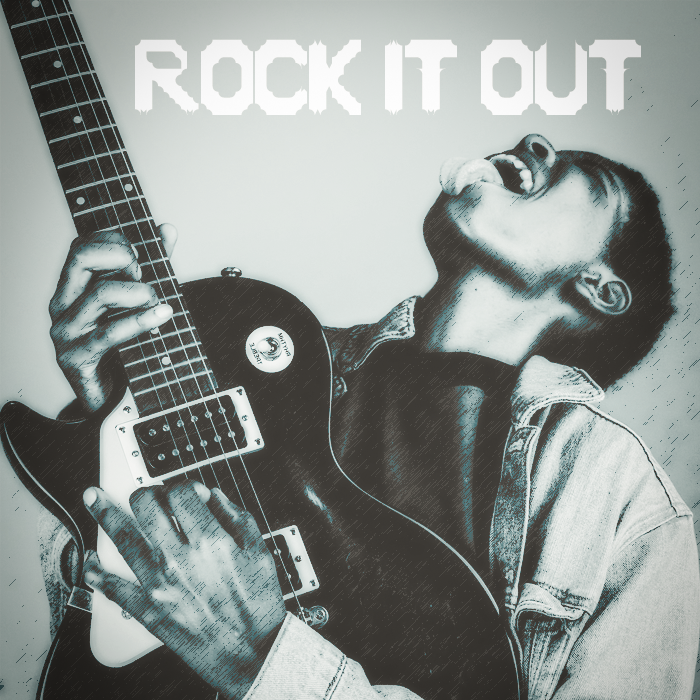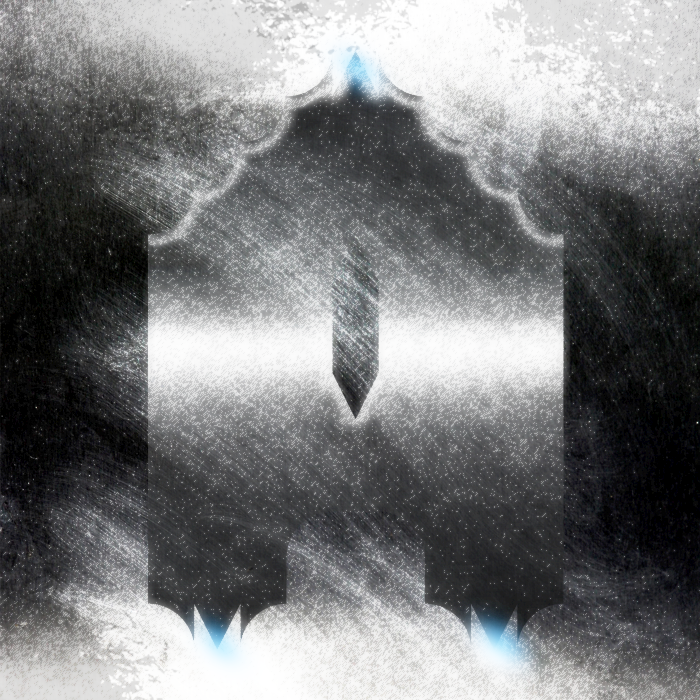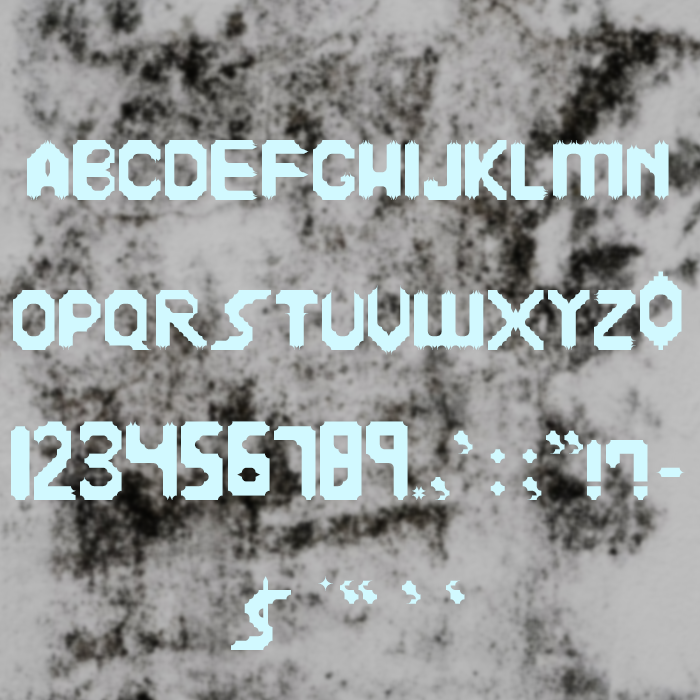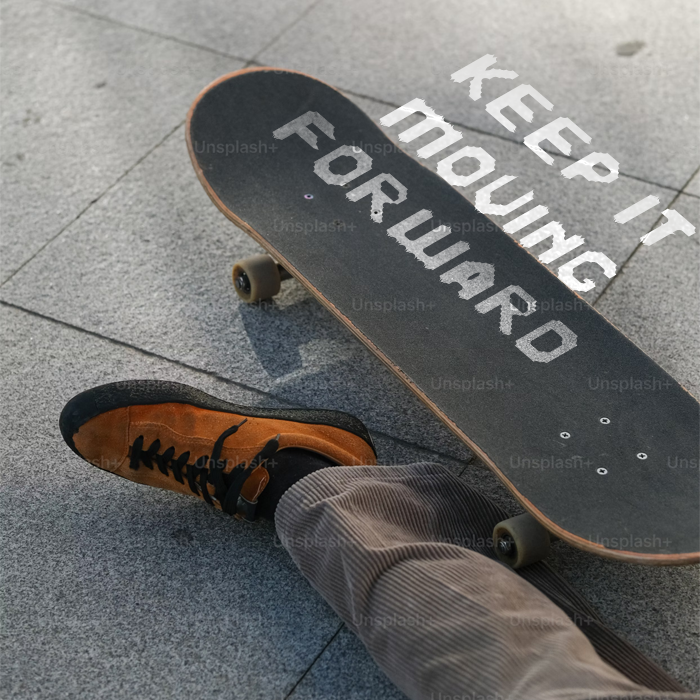
• This font has a bold, blocky, and futuristic appearance, characterized by sharp, pixelated edges and a digital, glitch-inspired aesthetic. The letters are thick and uniform in width, with jagged distortions giving them a cyberpunk or sci-fi feel. The design is reminiscent of old-school arcade games, early computer graphics, or hacking-themed typography, making it ideal for tech-related, dystopian, or experimental designs. The font conveys a strong, edgy, and modern vibe, perfect for high-impact visuals in digital media, gaming, or cyber-themed branding.